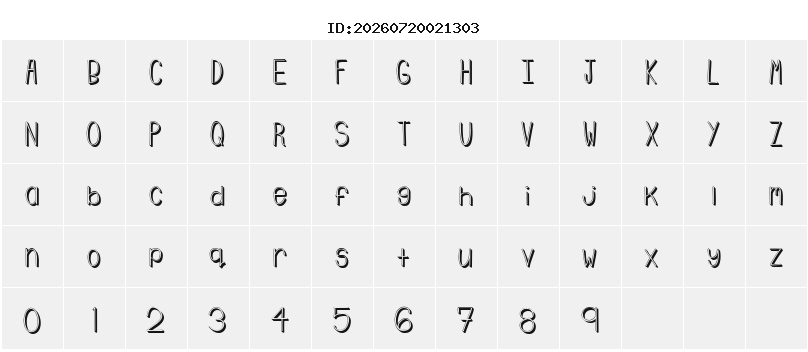
• Font Name: Emmy 3D
• Designer: Emily
• Manufacturer: Emily Lime Design
About Emmy 3D.ttf
Emmy 3D.ttf is a modern, elegant sans-serif font designed for ultimate readability and visual harmony. Perfect for branding, headlines, web design, and print materials.